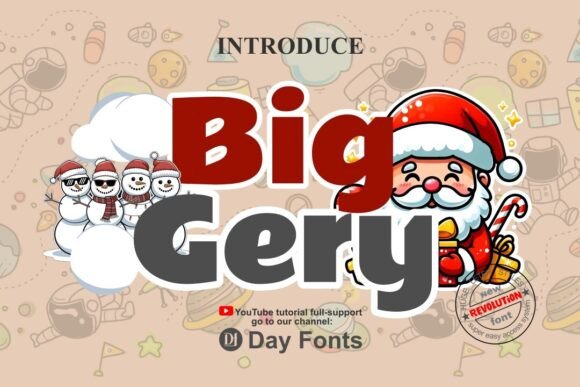
Biggery Font: The Perfect Companion for Playful Designs
In the world of typography, a good font can make all the difference in a design project. It can elevate the visual appeal, convey the tone and personality, and even evoke emotions. If you’re looking for a font that can add a playful touch to your designs, look no further than Biggery Font. This charming and personable bold display typeface is sure to delight the eye and heart alike.
What is Biggery Font?
Biggery Font is a bold display typeface that embodies a hint of whimsy, making it perfect for crafting stickers, keepsake cards, or any design endeavor requiring a playful touch. Its unique design artfully marries functionality and flourishes, making it a versatile font for various design projects.
Key Features of Biggery Font
- Bold and Playful: Biggery Font is a bold display typeface that commands attention without being overpowering. Its playful nature makes it perfect for designs that require a touch of whimsy.
- Charming and Personable: The font has a charming and personable feel to it, making it perfect for designs that require a human touch.
- Functional and Flourishing: Biggery Font artfully balances functionality and flourishes, making it a versatile font for various design projects.
Uses of Biggery Font
Biggery Font is a versatile font that can be used in various design projects, including:
- Stickers: The font’s playful and bold nature makes it perfect for creating eye-catching stickers.
- Keepake Cards: Biggery Font’s charming and personable feel makes it ideal for creating keepsake cards that require a human touch.
- Playful Designs: The font’s whimsical nature makes it perfect for designs that require a playful touch, such as children’s books, games, or educational materials.
Benefits of Using Biggery Font
Using Biggery Font in your design projects can have several benefits, including:
- Unique Visual Appeal: The font’s bold and playful nature can add a unique visual appeal to your designs.
- Emotional Connection: Biggery Font’s charming and personable feel can help create an emotional connection with your audience.
- Versatility: The font’s functional and flourishing design makes it versatile for various design projects.
Tips for Using Biggery Font
Here are some tips for using Biggery Font in your design projects:
- Use it Sparingly: Biggery Font is a bold display typeface, so use it sparingly to avoid overwhelming your design.
- Pair it with Other Fonts: The font pairs well with other fonts, so experiment with different combinations to find the perfect match.
- Experiment with Colors: Biggery Font looks great in bold colors, so experiment with different color combinations to find the perfect match.
In conclusion, Biggery Font is a charming and personable bold display typeface that is perfect for adding a playful touch to your designs. Its unique design artfully marries functionality and flourishes, making it a versatile font for various design projects. With its bold and playful nature, charming and personable feel, and functional and flourishing design, Biggery Font is sure to delight the eye and heart alike.
- What is Biggery Font?: Biggery Font is a bold display typeface that embodies a hint of whimsy, making it perfect for crafting stickers, keepsake cards, or any design endeavor requiring a playful touch.
- What are the key features of Biggery Font?: The font’s key features include its bold and playful nature, charming and personable feel, and functional and flourishing design.
- What are the uses of Biggery Font?: Biggery Font can be used in various design projects, including stickers, keepsake cards, and playful designs.